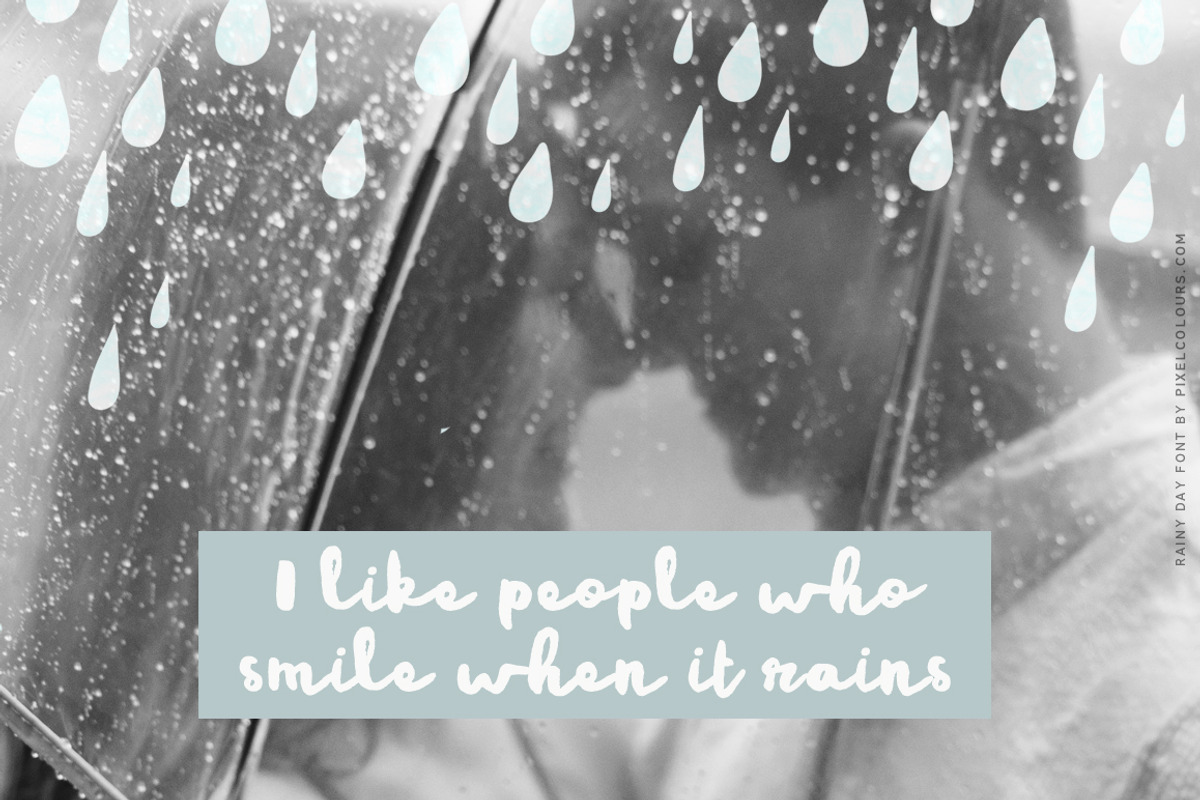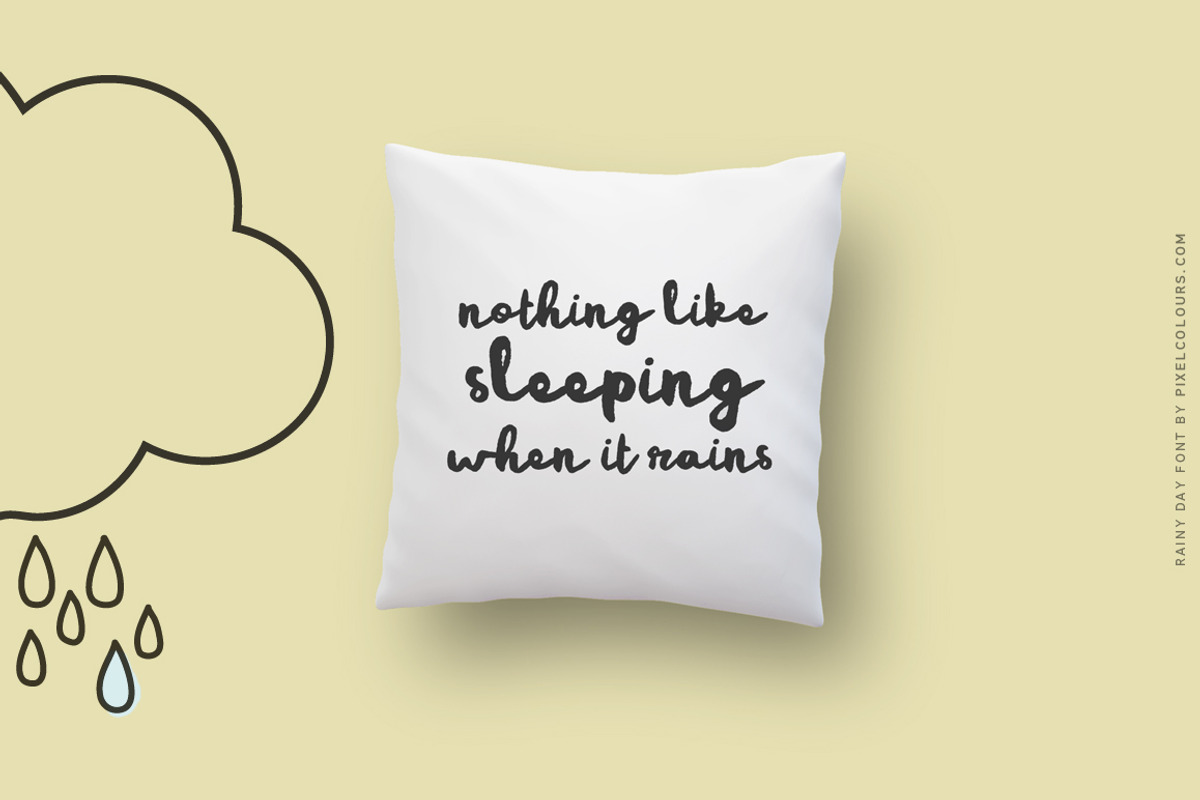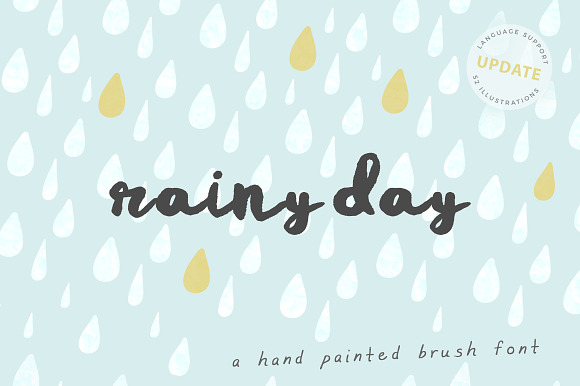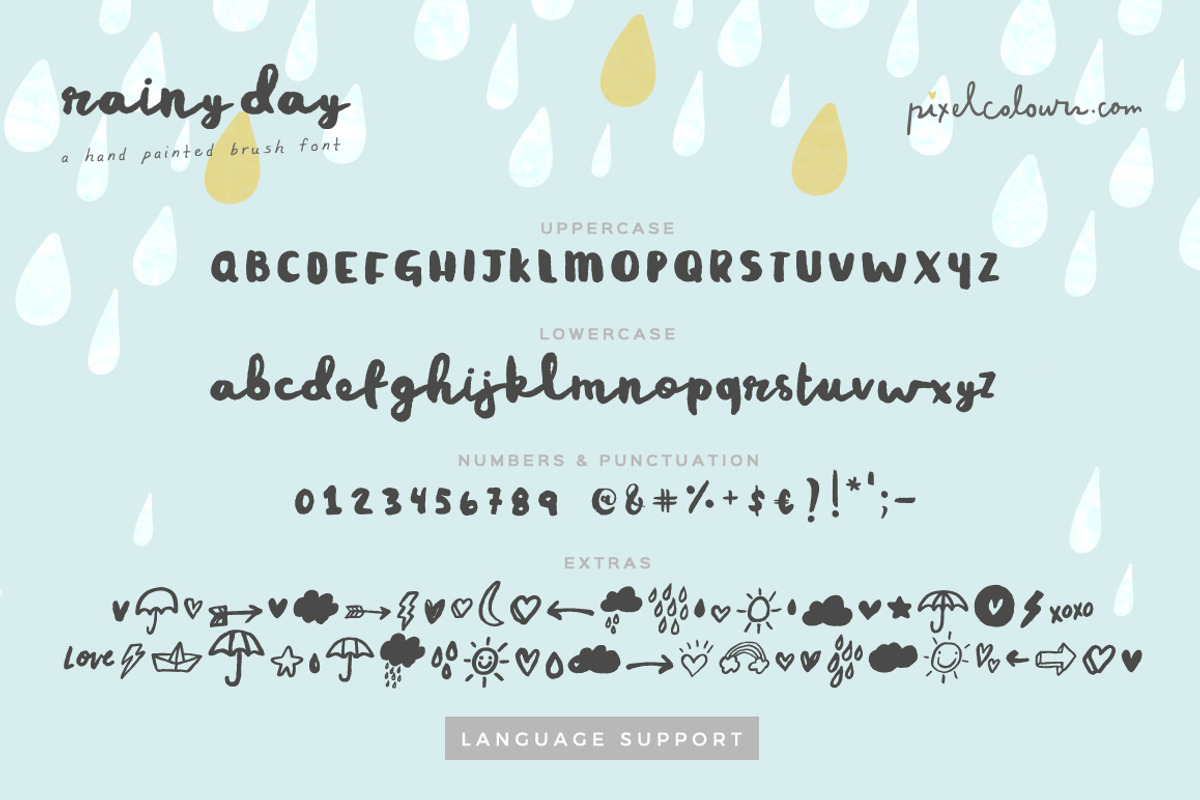
Rainy Day Brush Script Font
Rainy Day Uppercase & Lowercase Font
Rainy Day Extras (A font with 52 hand painted illustrations)
Numbers and punctuation
- Rainy Day is a hand painted brush font that includes lots of cute illustrations to make the sweetest designs!